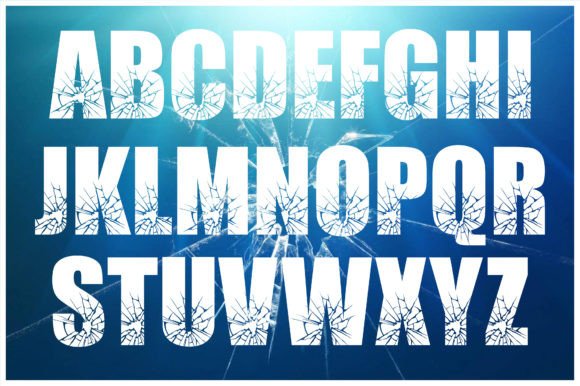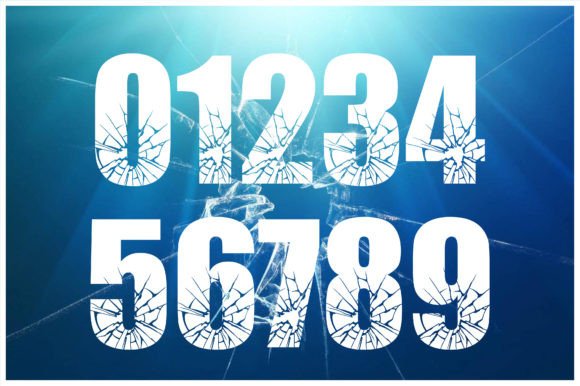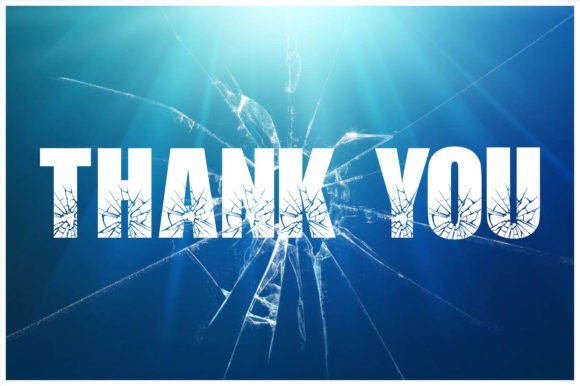
Introducing Broken Font: The Ultimate Decorative Font for Designers and Crafters
Are you tired of using the same old fonts in your designs and crafts? Look no further! Broken Font is a cool and dramatic decorative font that’s perfect for adding a touch of elegance and sophistication to your projects. In this article, we’ll take a closer look at Broken Font, its features, and how you can use it to take your designs and crafts to the next level.
What is Broken Font?
Broken Font is a unique and stylish decorative font that’s designed to add a touch of drama and flair to your designs and crafts. Its broken, distressed look gives it a one-of-a-kind appearance that’s sure to grab attention. Whether you’re working on a logo, poster, or craft project, Broken Font is the perfect choice for adding a bit of edge and personality.
Features of Broken Font
- Unique and Stylish Design: Broken Font features a distinctive broken, distressed design that’s unlike any other font out there.
- Highly Versatile: Broken Font is perfect for a wide range of design and craft projects, from logos and posters to scrapbooking and DIY crafts.
- Easily Readable: Despite its broken design, Broken Font is surprisingly easy to read, making it perfect for use in both titles and body text.
- Scalable: Broken Font is designed to be scalable, so you can use it for projects of all sizes, from business cards to billboards.
Why Use Broken Font?
So why should you use Broken Font in your designs and crafts? Here are just a few reasons:
- Add a Touch of Drama: Broken Font is the perfect way to add a bit of drama and flair to your designs and crafts.
- Stand Out from the Crowd: With its unique and stylish design, Broken Font is sure to help your projects stand out from the crowd.
- Perfect for Crafty Projects: Broken Font is a great choice for crafty projects, such as scrapbooking, DIY crafts, and more.
How to Use Broken Font
Using Broken Font is easy! Here are a few tips to get you started:
- Pair it with Other Fonts: Broken Font pairs well with a variety of other fonts, so don’t be afraid to experiment and find the perfect combination for your project.
- Use it for Titles and Headings: Broken Font is perfect for use in titles and headings, where its dramatic design can really shine.
- Experiment with Colors: Broken Font looks great in a variety of colors, so don’t be afraid to experiment and find the perfect color scheme for your project.
| Font Name | Broken Font |
| Author | AvocadoSVG |
In conclusion, Broken Font is a cool and dramatic decorative font that’s perfect for designers and crafters looking to add a touch of elegance and sophistication to their projects. With its unique and stylish design, highly versatile features, and ease of use, Broken Font is sure to become a favorite in your design arsenal. So why wait? Add Broken Font to your projects today and see the difference it can make!